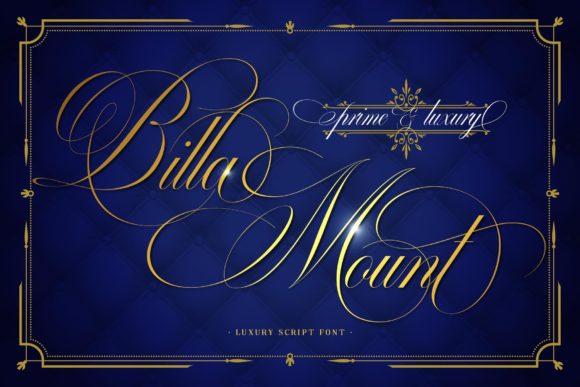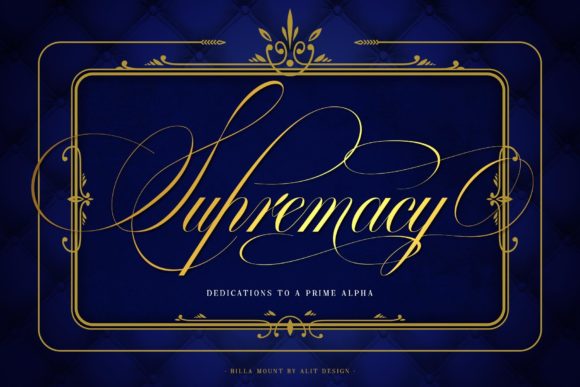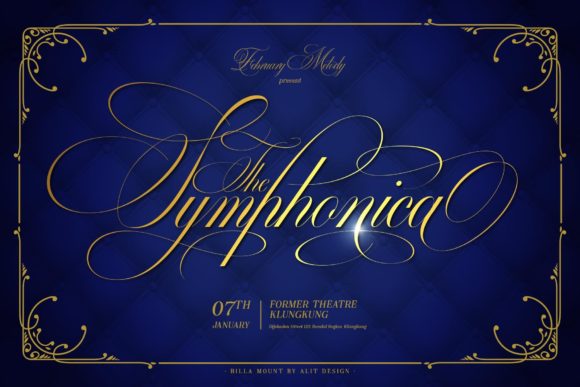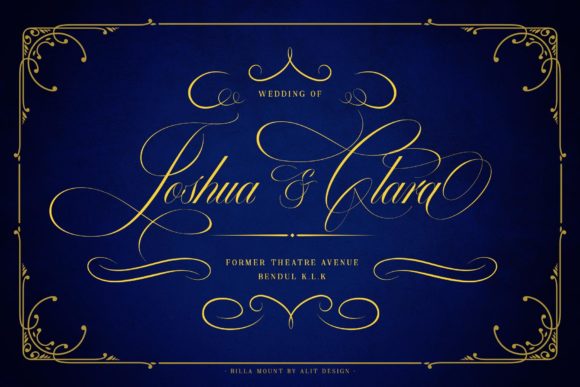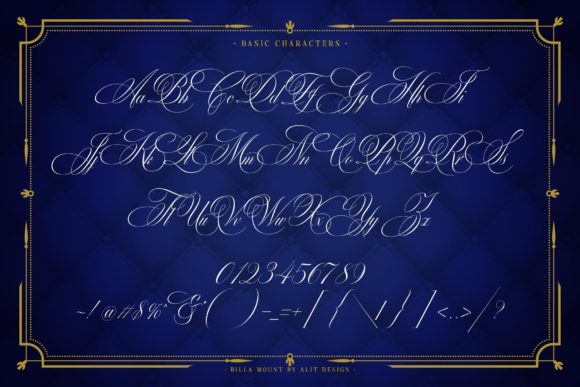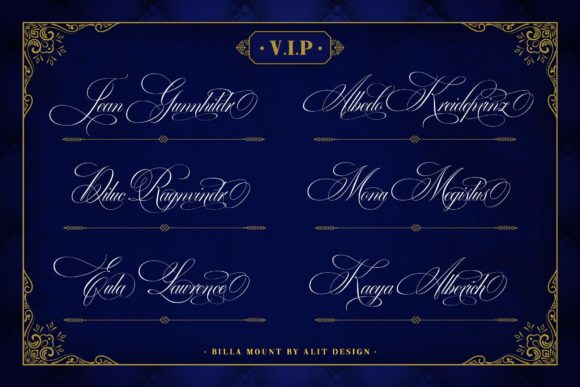
Billa Mount Font: Elevate Your Designs with Luxurious Contemporary Script
Are you on the hunt for a font that exudes luxury, sophistication, and a touch of modern elegance? Look no further than the Billa Mount Font. This stunning script font is making waves in the design community, and for good reason. Its ravishing style is sure to captivate your audience and elevate your designs to new heights. In this article, we’ll dive into the world of Billa Mount, exploring its features, benefits, and uses, as well as provide tips on how to make the most of this gorgeous font.
What is Billa Mount Font?
Billa Mount is a luxurious and contemporary script font that is perfect for designers and crafters looking to add a touch of sophistication to their work. With its flowing lines, elegant swashes, and beautiful glyphs, this font is sure to make a statement. Whether you’re creating a logo, branding materials, or social media graphics, Billa Mount is the perfect choice.
Key Features of Billa Mount Font
- Luxurious and Contemporary Design: Billa Mount boasts a modern and sleek design that is sure to turn heads.
- PUA Encoded: This font is PUA (Private Use Area) encoded, which means you can access all glyphs and swashes with ease.
- Elegant Swashes: Add a touch of elegance to your designs with Billa Mount’s beautiful swashes.
- Multilingual Support: This font supports multiple languages, making it perfect for global designs.
Benefits of Using Billa Mount Font
So, why choose Billa Mount Font for your next design project? Here are just a few benefits of using this gorgeous font:
- Instantly Elevate Your Designs: With Billa Mount, you can instantly add a touch of luxury and sophistication to your designs.
- Versatile: This font is perfect for a wide range of design projects, from logos and branding materials to social media graphics and more.
- Easy to Use: With its PUA encoding, you can easily access all glyphs and swashes, making it simple to create stunning designs.
- Unique and Eye-Catching: Billa Mount’s ravishing style is sure to make your designs stand out from the crowd.
Tips for Using Billa Mount Font
Now that you’re excited about Billa Mount Font, here are a few tips to help you make the most of this gorgeous font:
- Pair it with a Sans-Serif Font: For a stunning contrast, pair Billa Mount with a clean sans-serif font.
- Experiment with Swashes: Don’t be afraid to get creative with Billa Mount’s elegant swashes.
- Use it for Headings and Titles: Billa Mount is perfect for headings and titles, adding a touch of luxury to your designs.
- Play with Colors: Experiment with different colors to find the perfect match for your design.
Who Can Benefit from Billa Mount Font?
Billa Mount Font is perfect for a wide range of designers and crafters, including:
- Graphic Designers: Add a touch of luxury to your designs with Billa Mount.
- Logotype Designers: Create stunning logos with Billa Mount’s elegant script.
- Crafters: Perfect for crafters who want to add a touch of sophistication to their projects.
- Social Media Influencers: Elevate your social media graphics with Billa Mount’s ravishing style.
In conclusion, Billa Mount Font is a luxurious and contemporary script font that is sure to elevate your designs to new heights. With its elegant swashes, beautiful glyphs, and PUA encoding, this font is perfect for designers and crafters looking to add a touch of sophistication to their work. Whether you’re creating logos, branding materials, or social media graphics, Billa Mount is the perfect choice. So why wait? Fall for its ravishing style and use Billa Mount to create gorgeous designs that will leave a lasting impression.